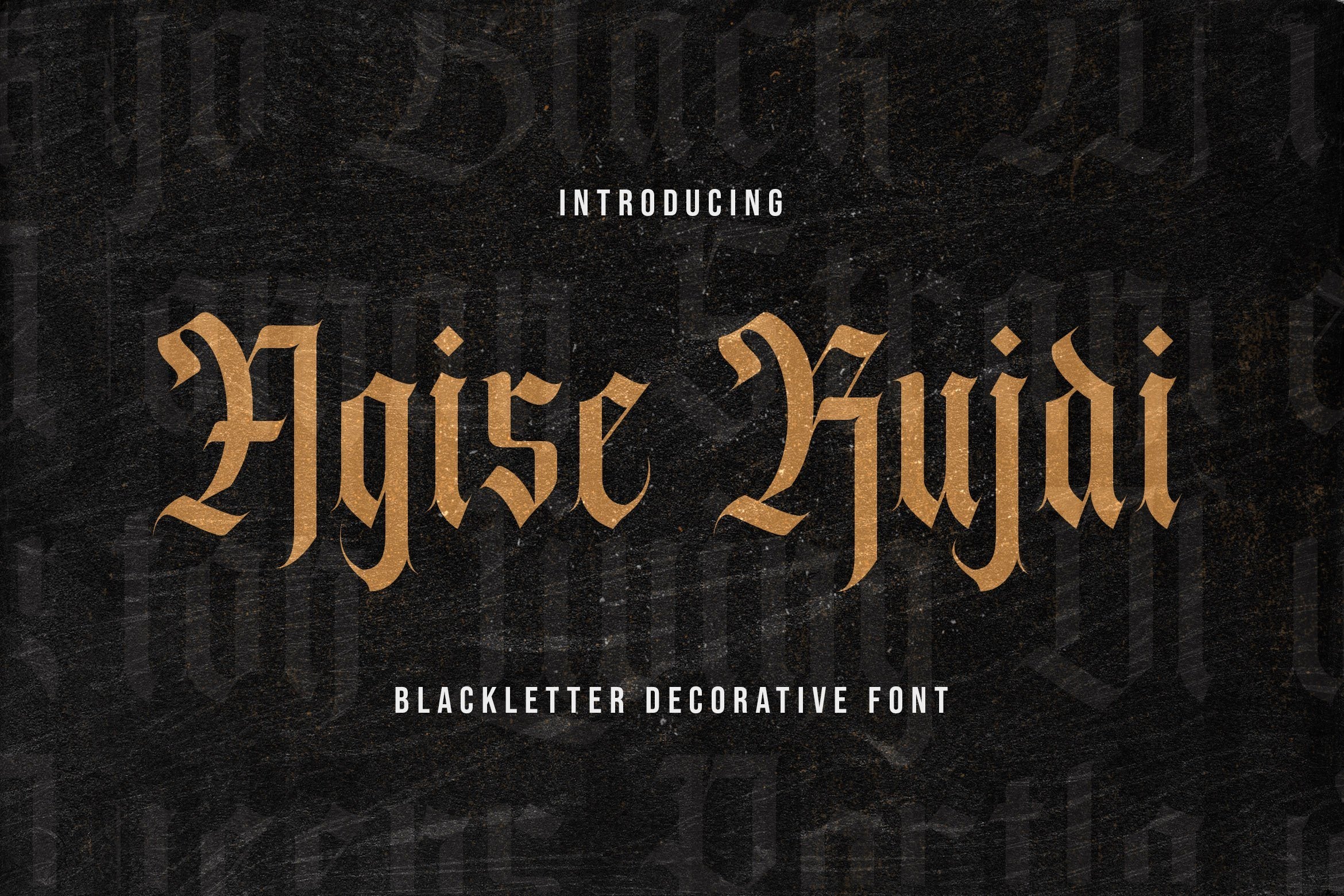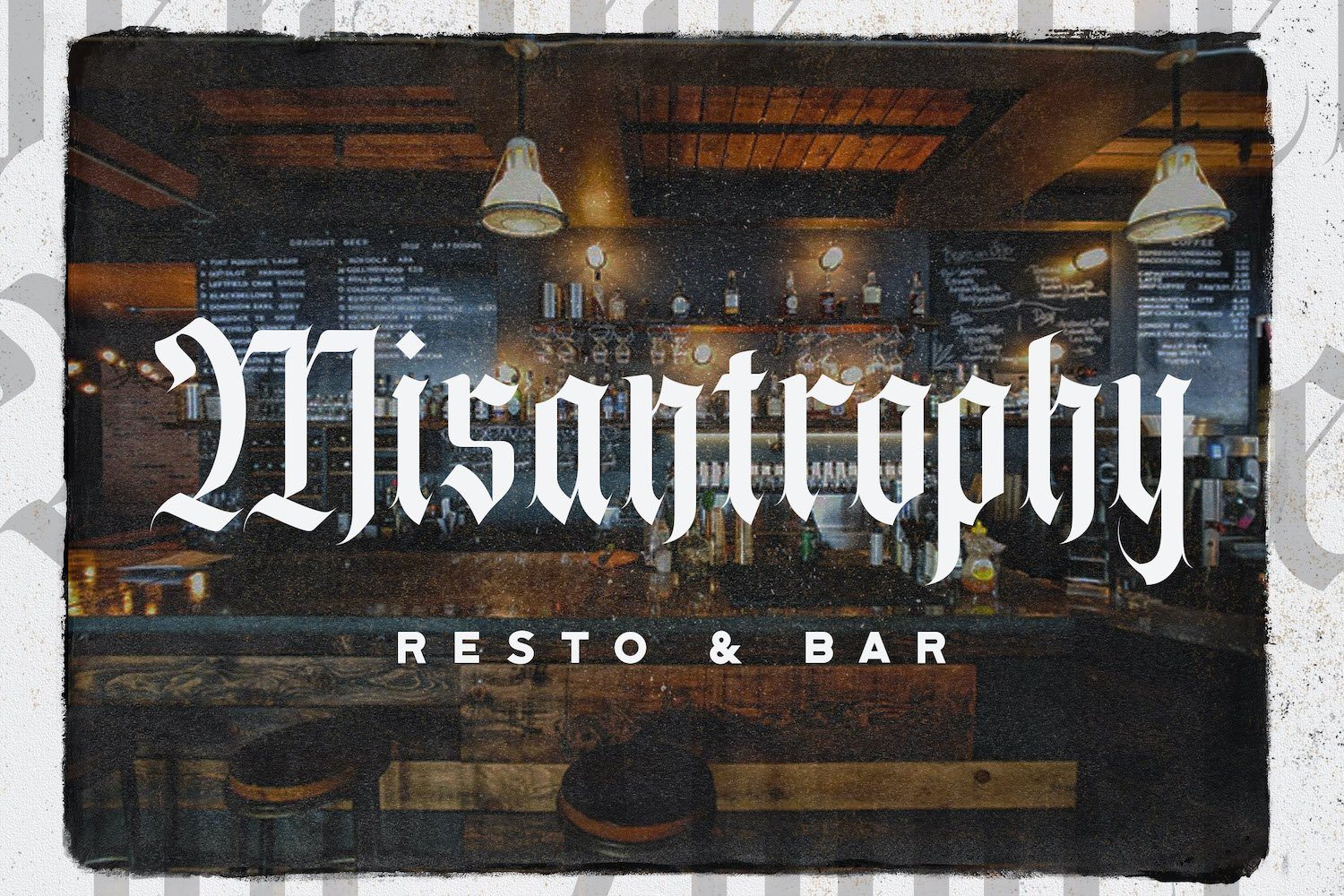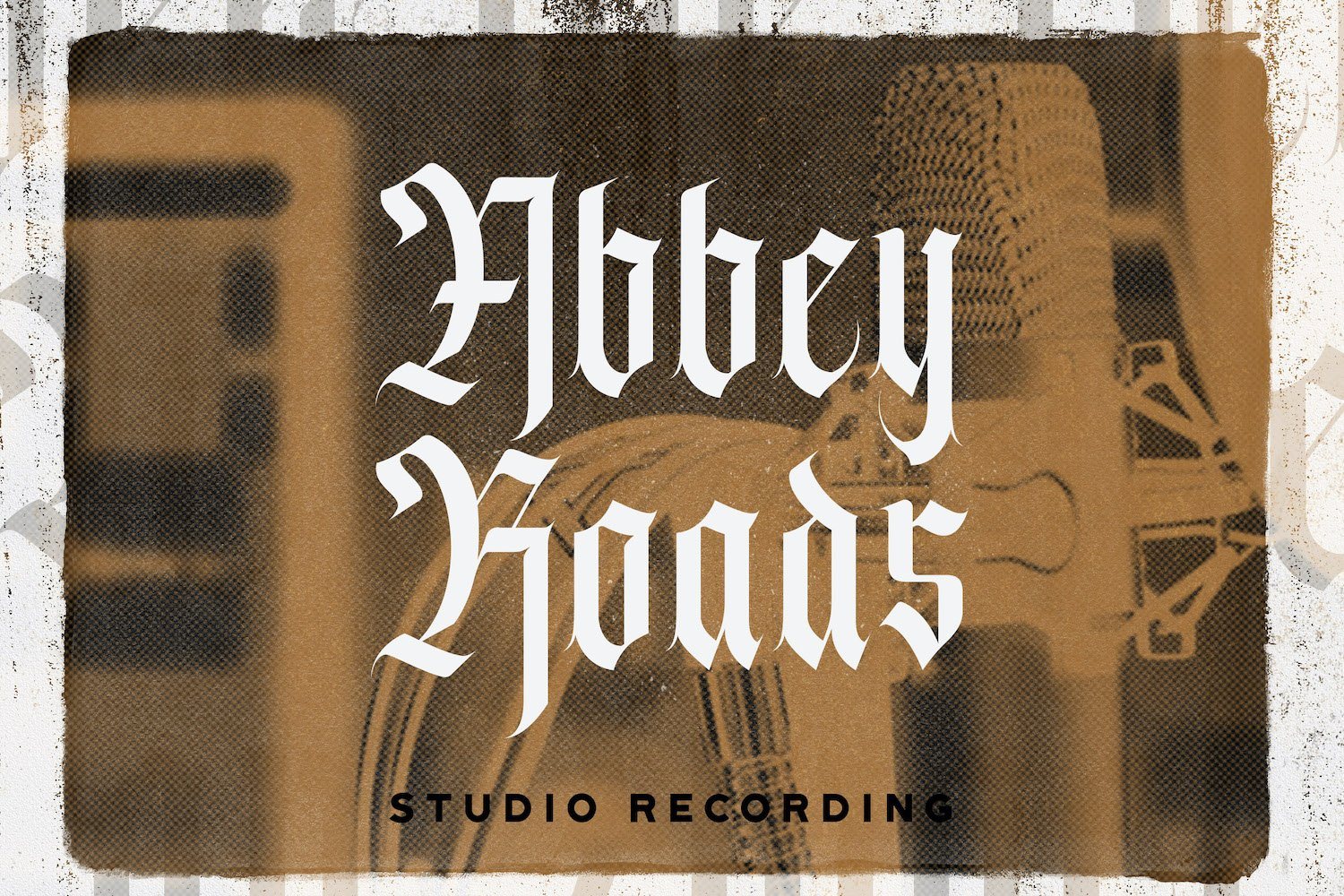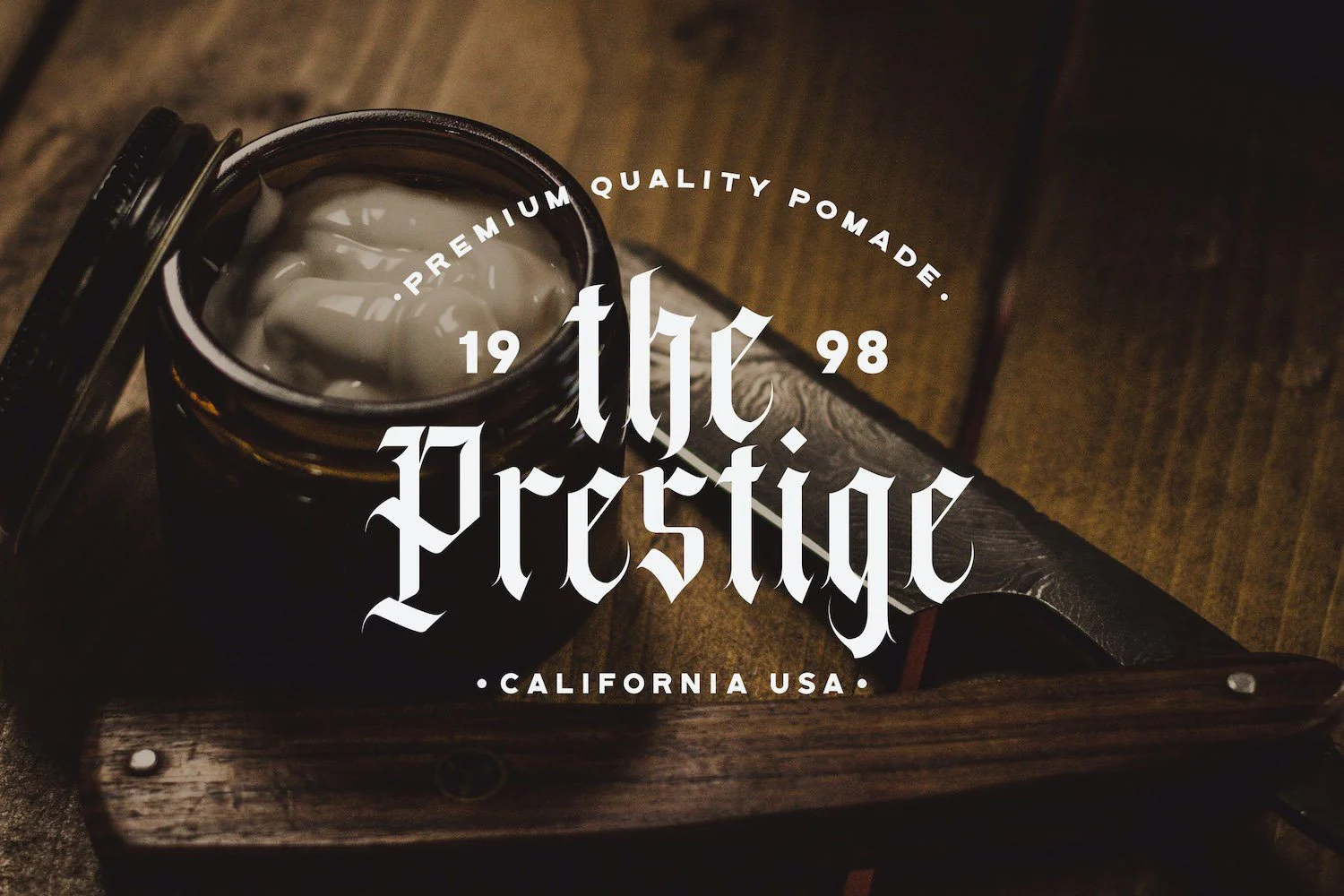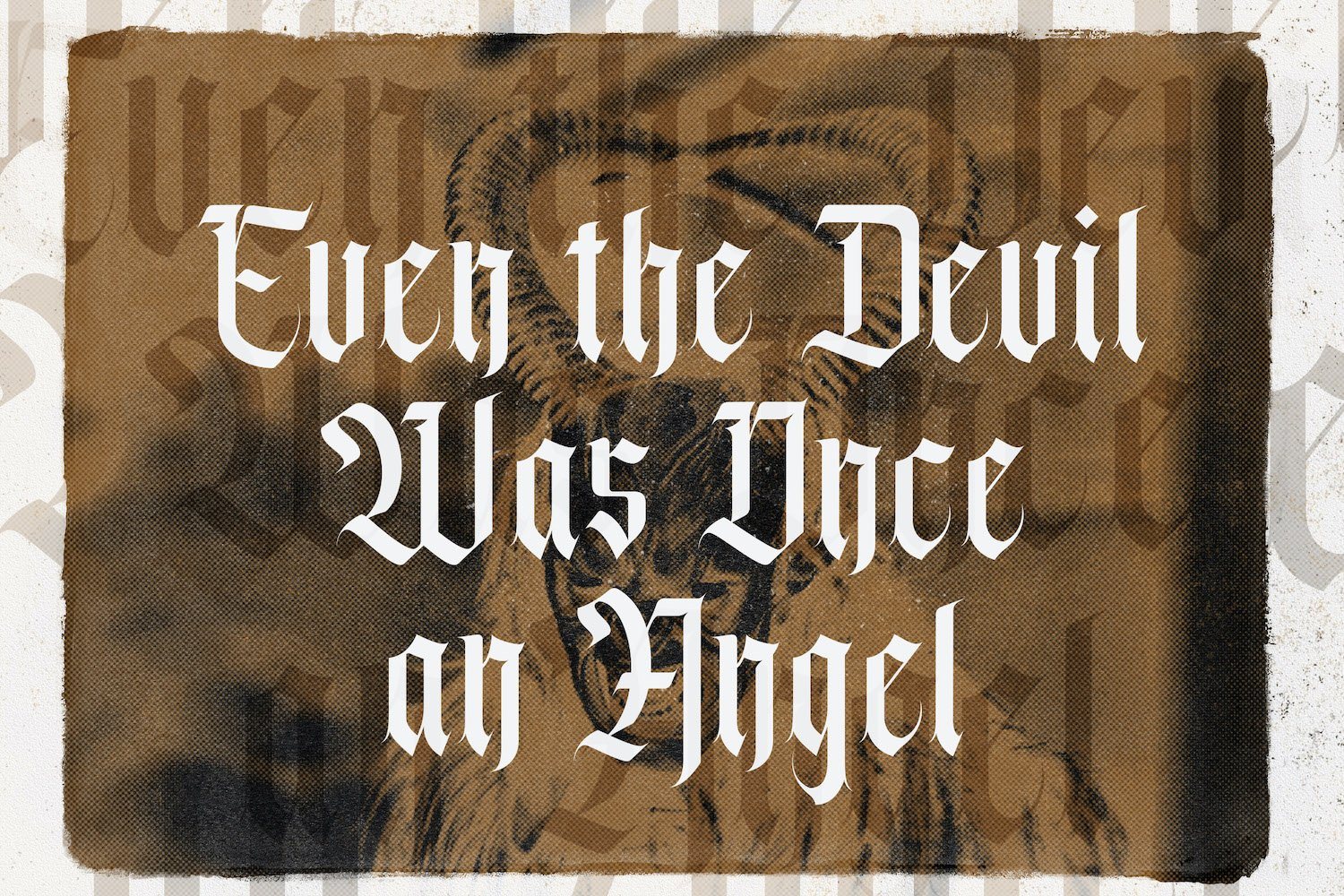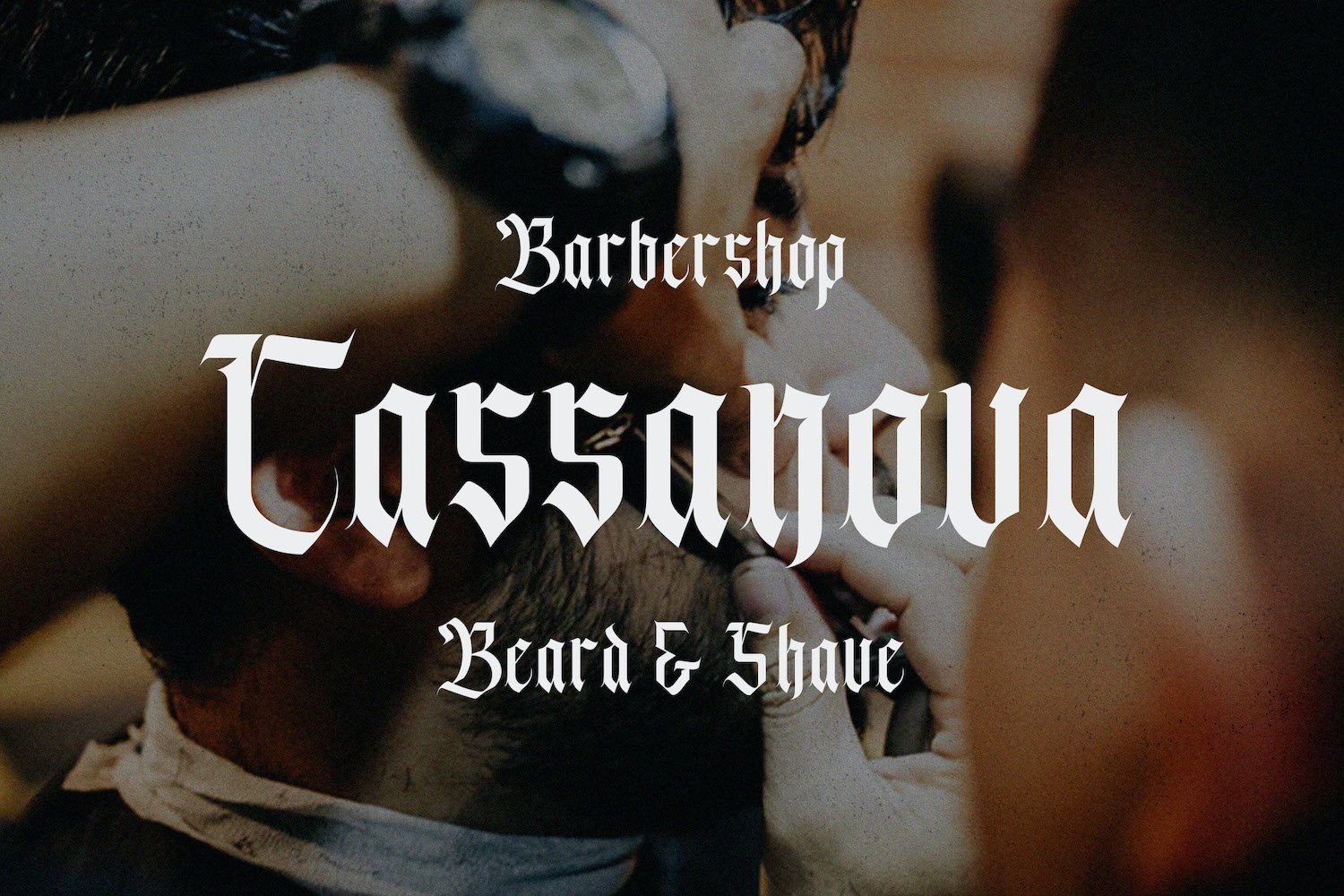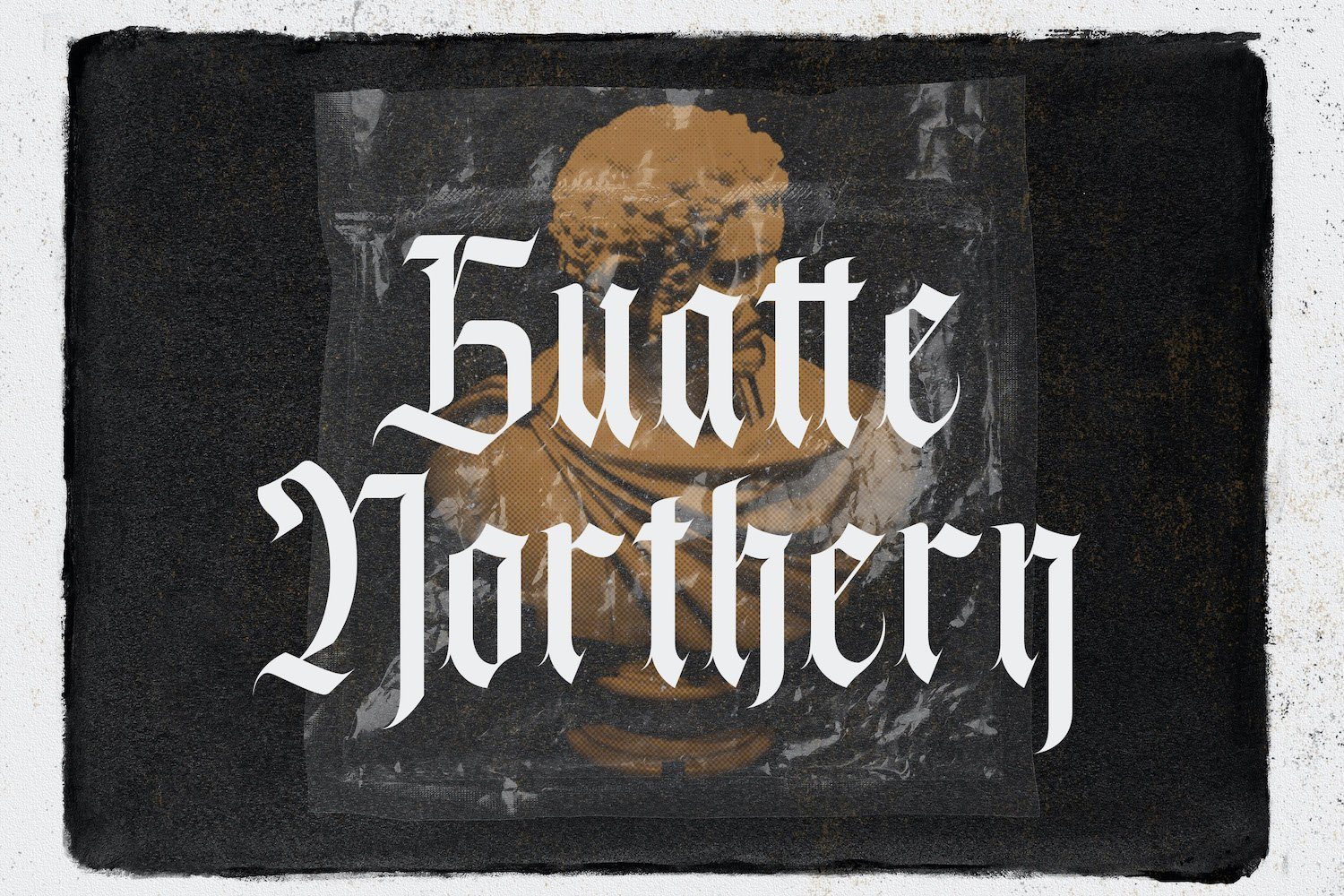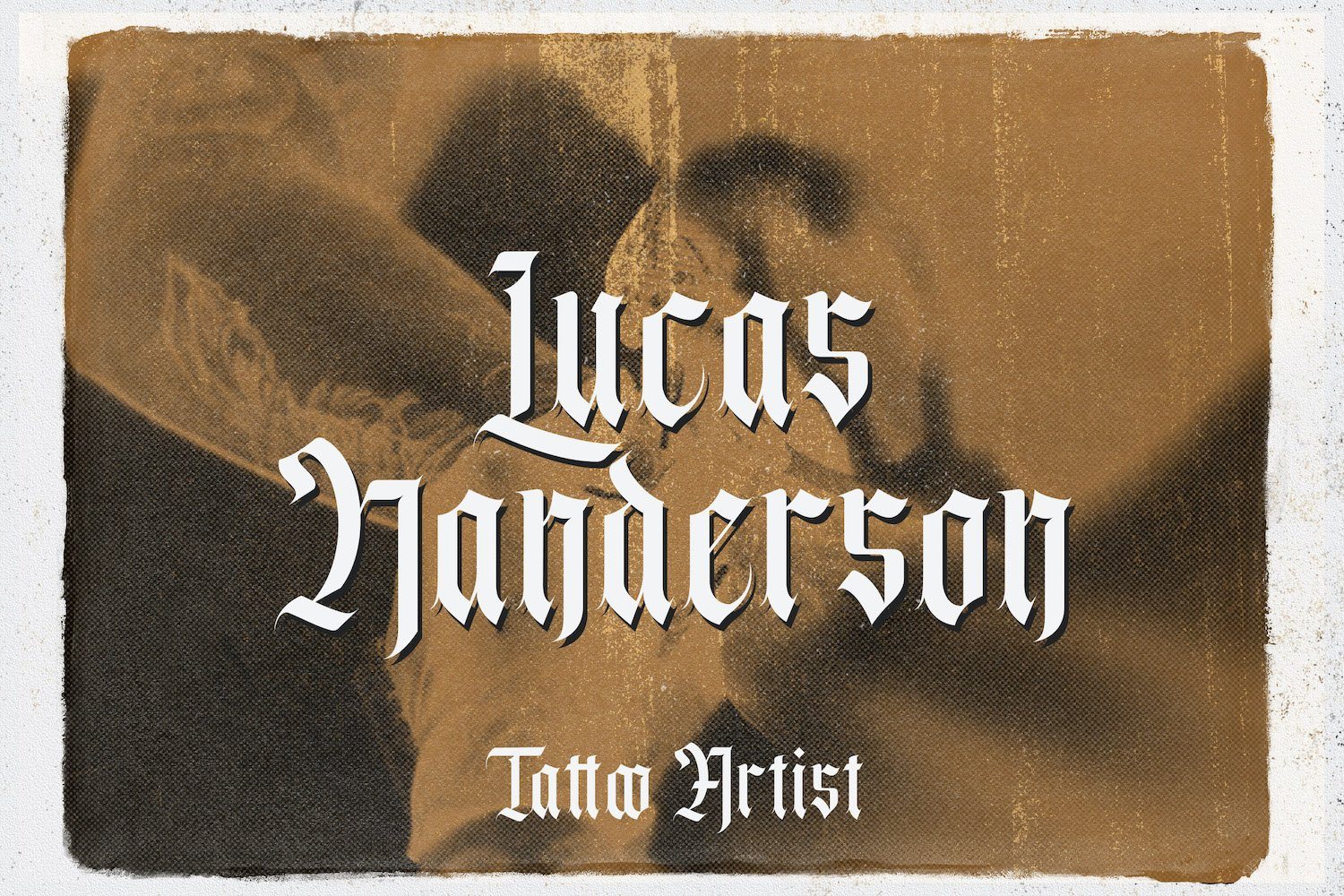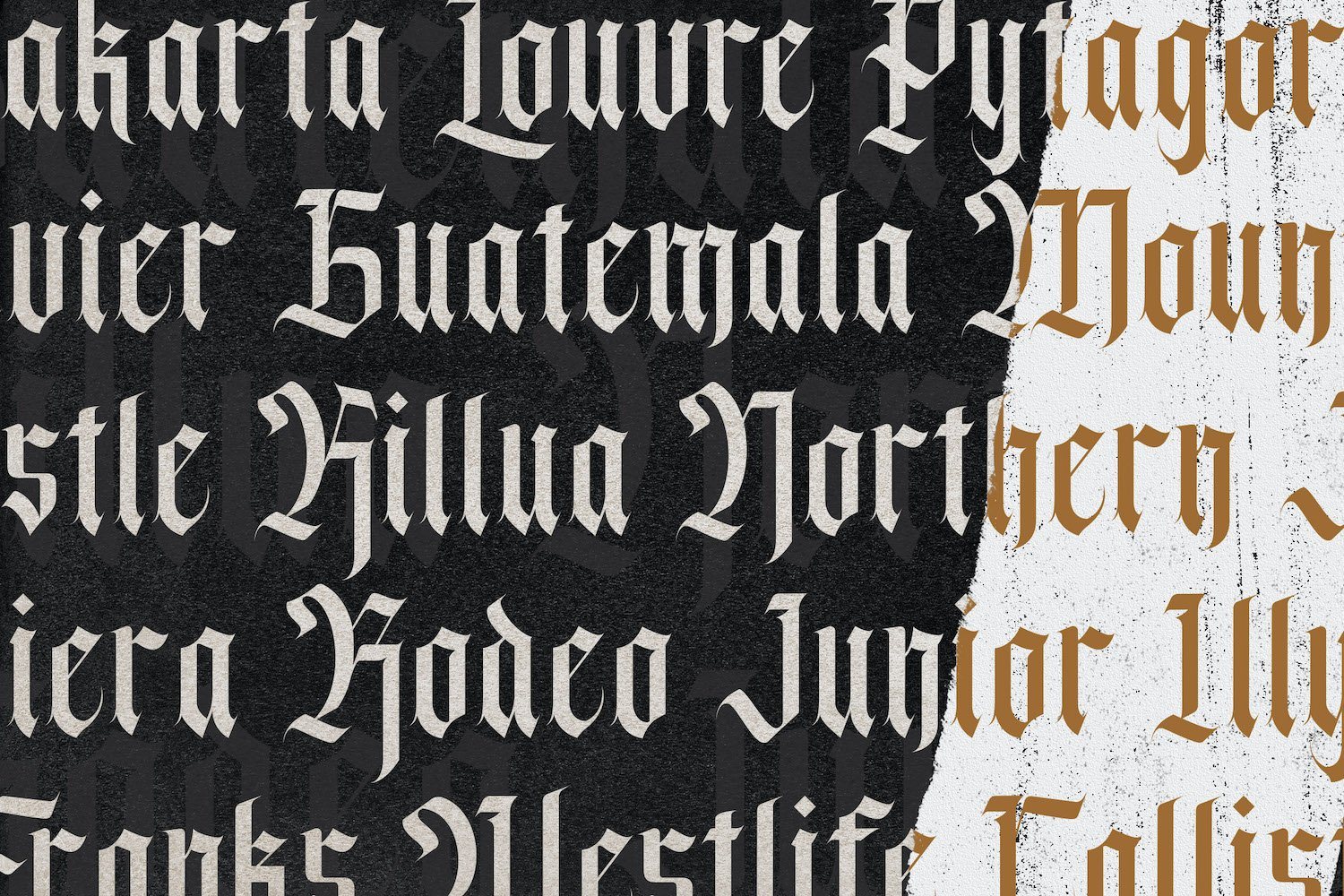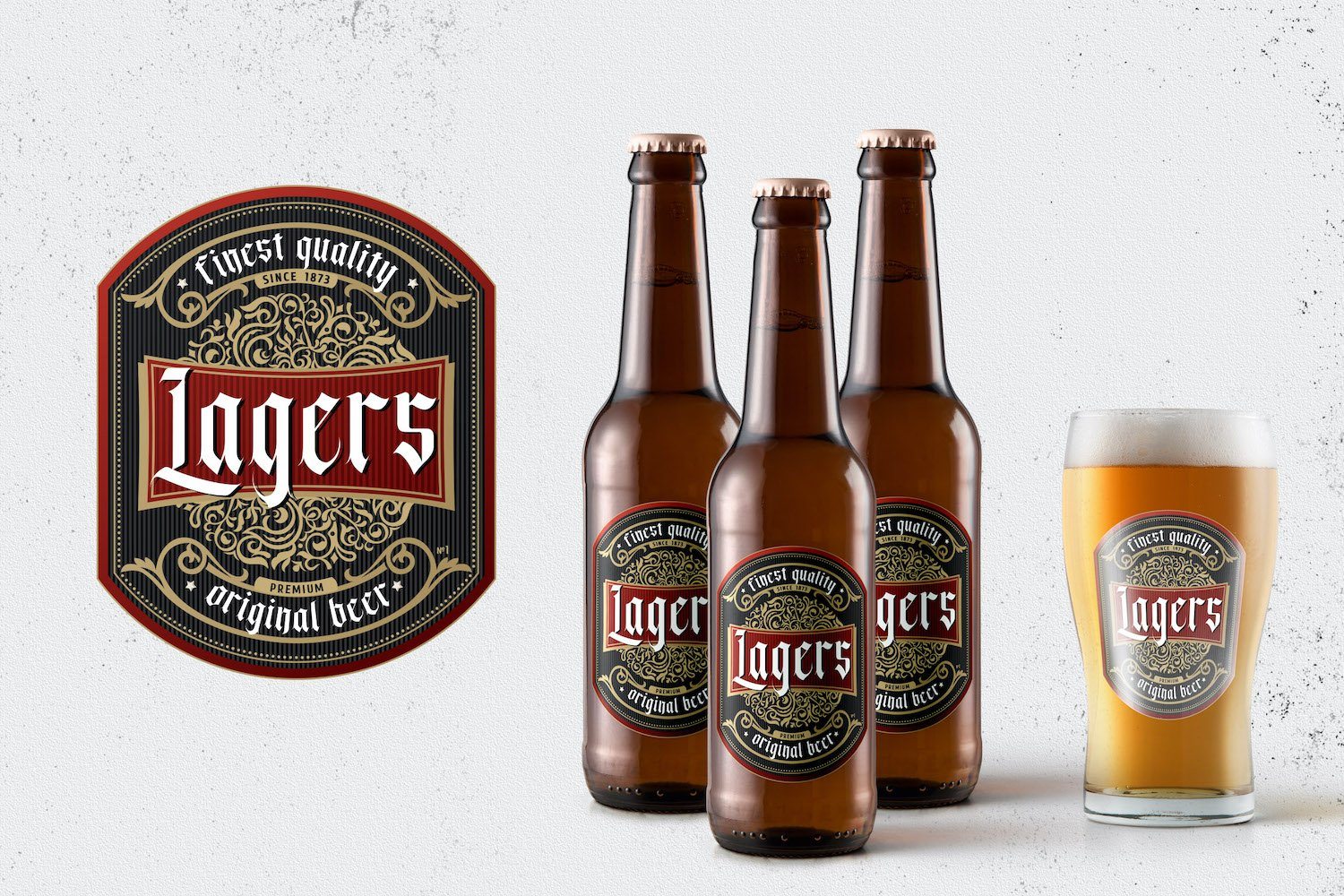
Agise Rujdi - Blackletter Decorative Font
Introducing Agise Rujdi - Blackletter Decorative Font
Agise Rujdi is an incredibly authentic and daring blackletter font. Add this font to your favorite creative ideas and notice how it makes them stand out!
Introducing Agise Rujdi - Blackletter Decorative Font
Agise Rujdi is an incredibly authentic and daring blackletter font. Add this font to your favorite creative ideas and notice how it makes them stand out!